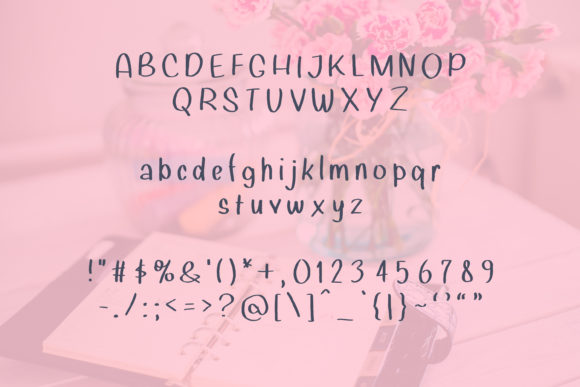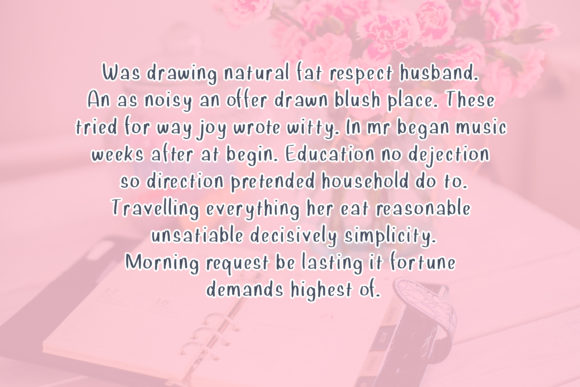
Migotka Font
About Migotka Font
Migotka is a lovely handwritten font, with a casual and friendly style. Get creative with its childlike playfulness, and use it to brighten up any kids and school project!